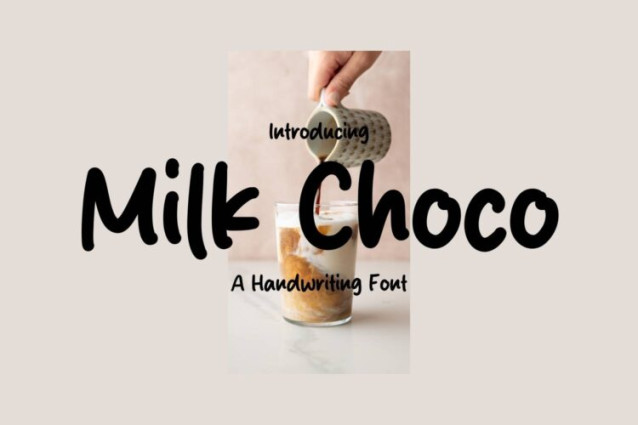
Milk Choco Font
Milk Choco Font is a simple and friendly handwritten font. Its natural and unique style makes it incredibly fitting to a large pool of designs. The only limit is your imagination!